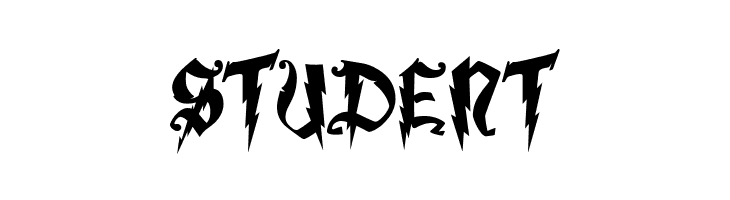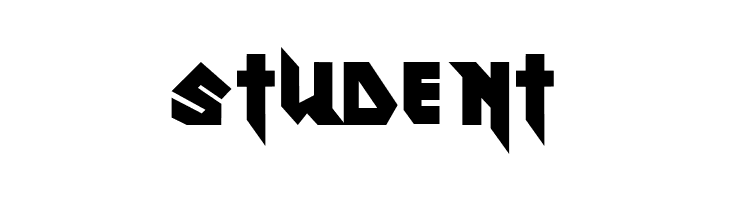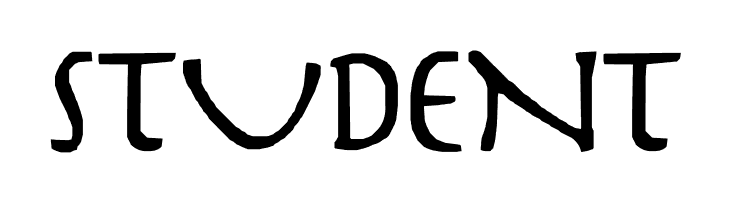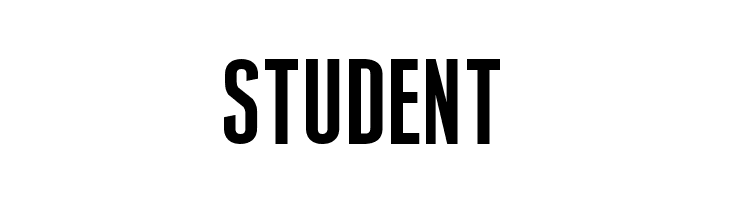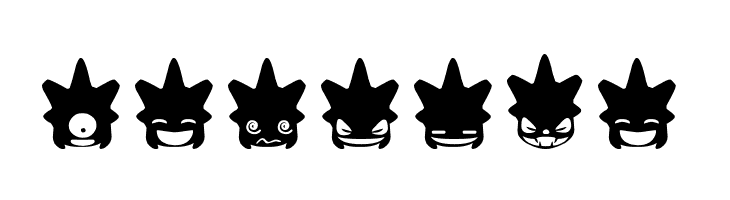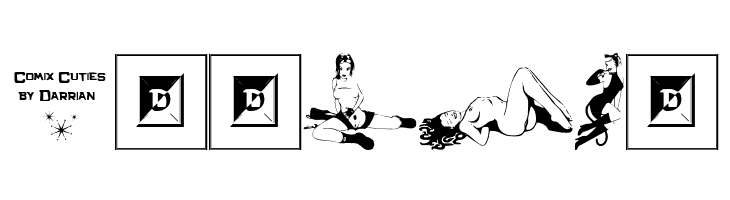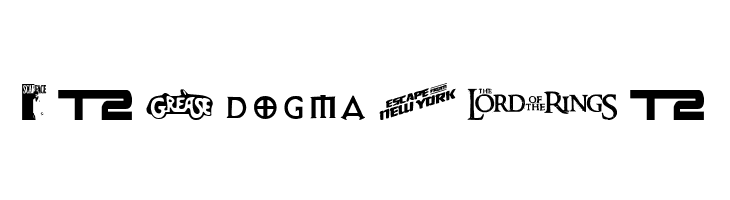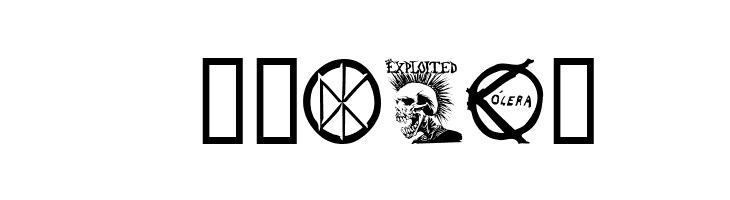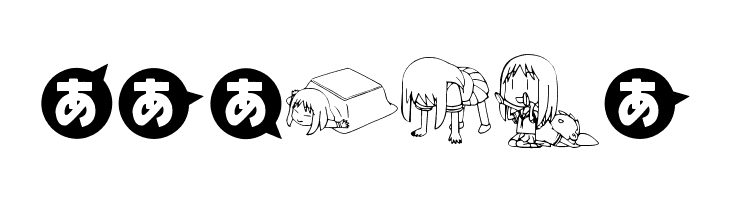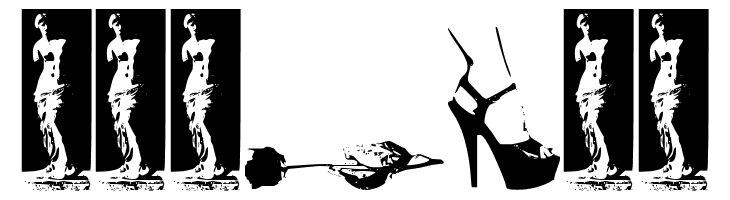
A bold, jagged font with a mystical, blackletter-inspired style.
Expressive punk smiley faces form each character in a bold, decorative style.
A display font where each character is styled after a famous movie logo.
A bold, rebellious collection of punk-inspired symbols and graphics.
A playful, character-based decorative font inspired by anime and manga.
Eclectic, bold logotypes with custom, graphic-heavy lettering.
Silhouette dingbat font with spy and action motifs.
A whimsical, character-based decorative font with illustrated glyphs.
Bold, condensed, slanted sans-serif with high energy and impact.
A playful set of sci-fi and fandom-themed dingbats with a cartoonish, hand-drawn style.
Bold eagle and bird icon set with varied styles and strong contrast.